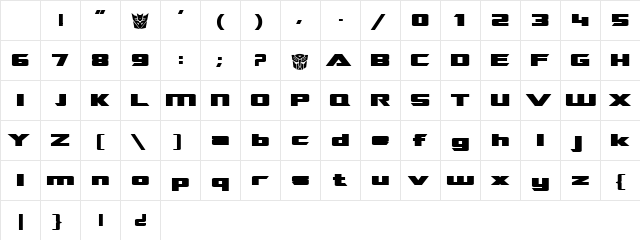
Complete TransRobotics Extended Bold glyph index. Displaying only characters natively supported by TransRobotics Extended Bold font.
TransRobotics Extended is a composed and adaptable typeface that performs quietly and consistently across a wide range of design contexts. Its bold stroke weight gives it real presence on the page.